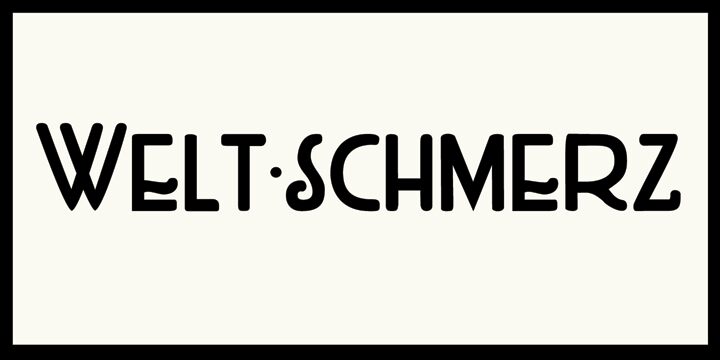
DK Weltschmerz by David Kerkhoff is a free whimsical display font with tall, rounded letters, an uneven hand-drawn stance, and gently changing stroke widths throughout. Curled details punctuate the otherwise broad, simple silhouettes.
Packaging and event graphics benefit from its mix of blunt shapes and small ornamental surprises, particularly for confectionery, independent shops, or offbeat festivals rather than a strict retro reference. On posters and children's publishing, the looping strokes can echo doodled borders or playful illustrations, making the lettering especially suited to comic, circus, and storybook themes.